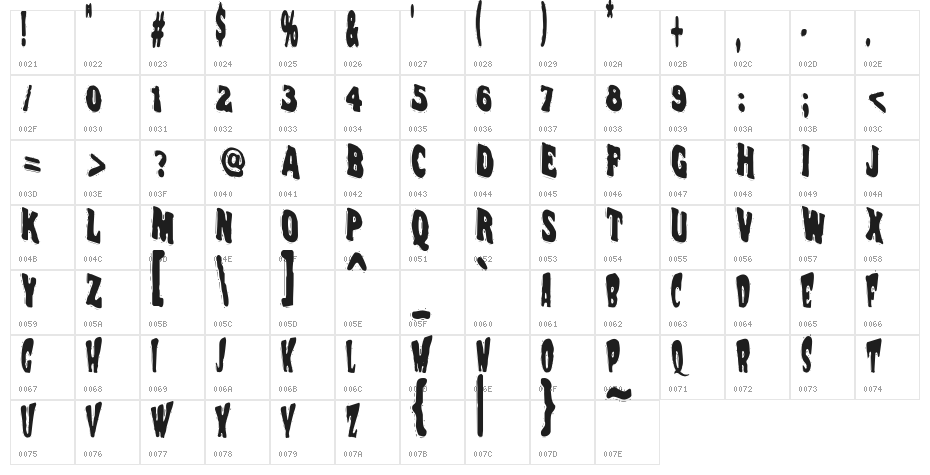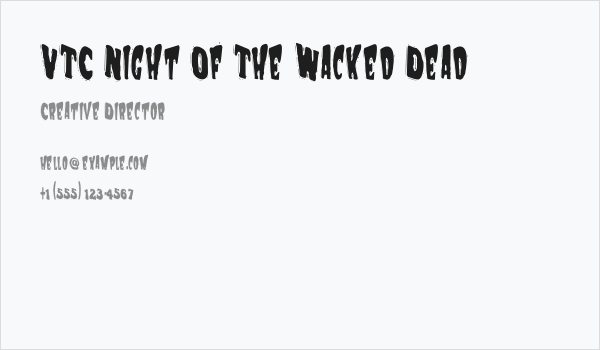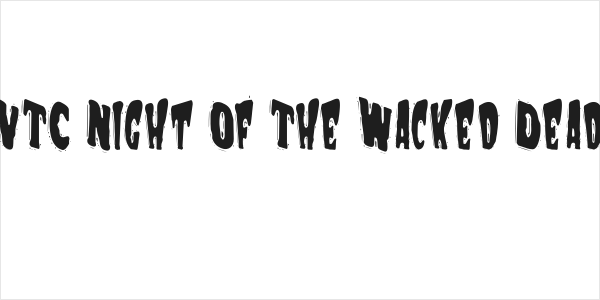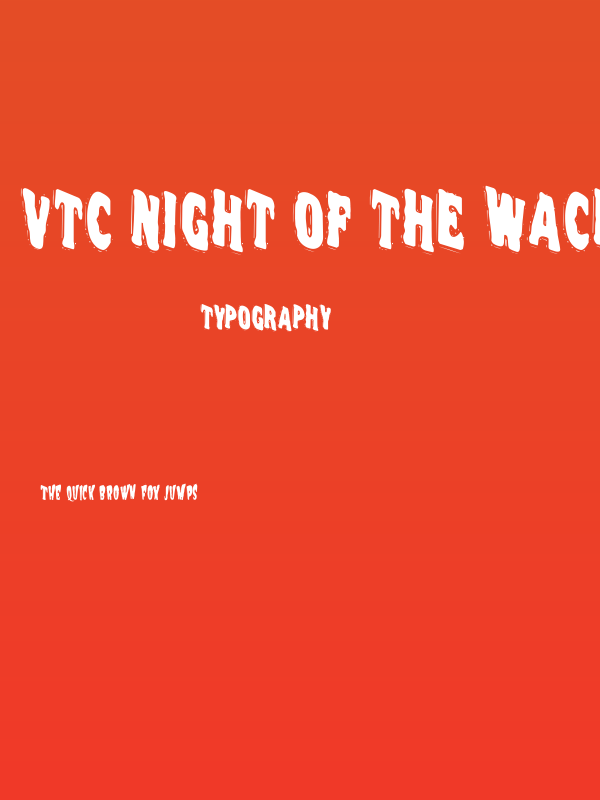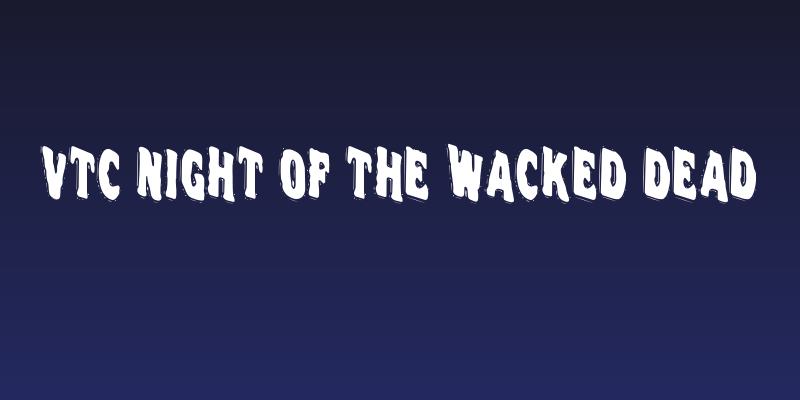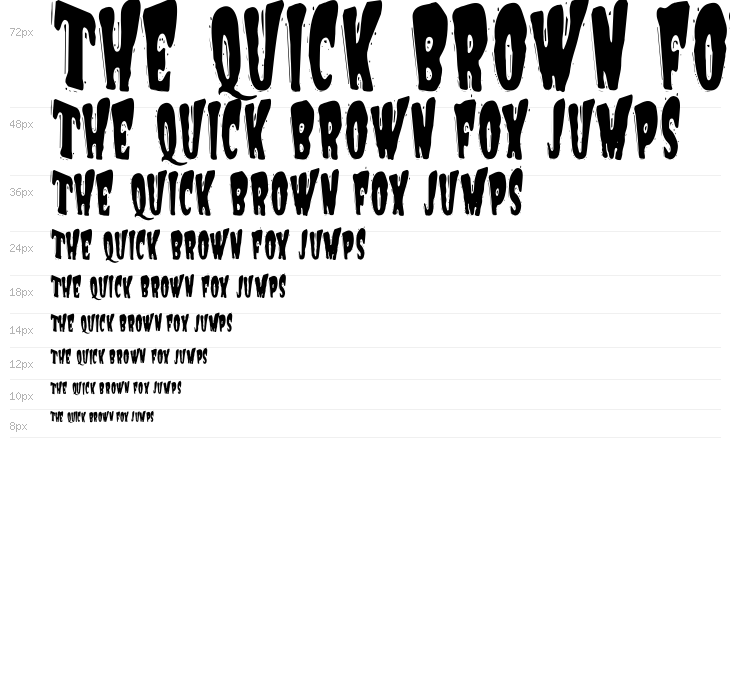
VTC Night Of The Wacked Dead Font
VTC Night Of The Wacked Dead Description
This font features a bold, distressed style with irregular edges and a slightly chaotic appearance. The characters have a hand-drawn, spooky aesthetic, reminiscent of horror or Halloween themes. The uppercase and lowercase letters maintain a consistent style, with exaggerated curves and uneven lines that give a sense of movement and energy. Numbers and special characters follow the same design principles, adding to the overall eerie and playful vibe. The font's unique style makes it stand out, perfect for projects that require a dramatic and eye-catching typeface.
| Use Case | Headlines, Posters, Themed Events |
| Proposed Projects | Ideal for Halloween-themed designs, horror movie posters, spooky invitations, and creative art projects. |